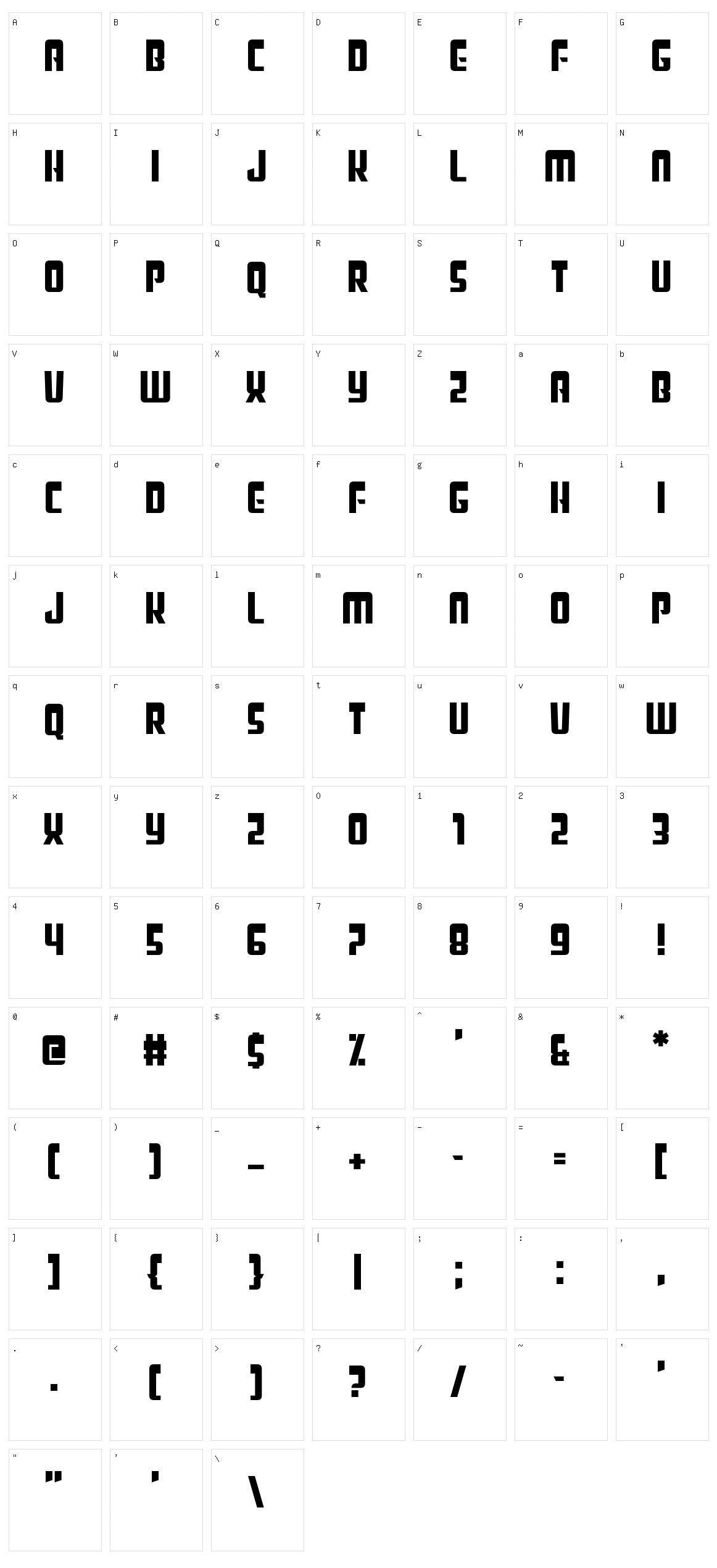
The free font Star Trebek is carefully designed by Chequered Ink, showcasing a thoughtful balance of creativity and usability and falls under the Groovy font style. When you download the ZIP file, it contains only 8.25 KB of font files, making it lightweight and quick to download. Please review the license details below to understand permitted usage and distribution rights. If license information is not available, we recommend using this font for personal projects only or contacting the author directly for commercial usage permissions.